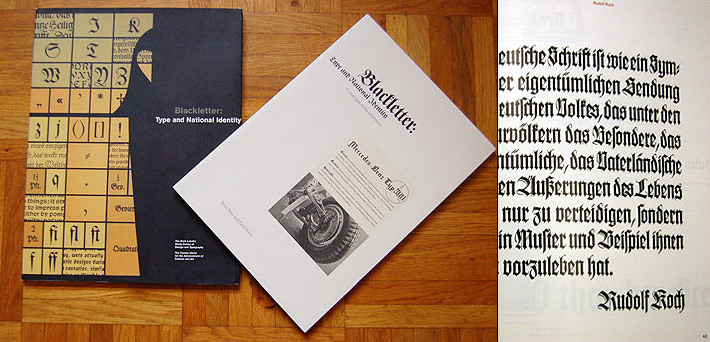
Resources for Blackletter Type
Visitors to TypeOff.de often ask for further information regarding blackletter type, its history and development, as well as its current use. Below are a list of links that I have assembled to try and help designers navigate through the topic. Please note that while this page does not descibe the history or classification of blackletter typefaces, it does link to several resources that do.
The “Blackletter: Type and National Identity” Exhibition
Several books were published alongside this exhibition, held at Cooper Union in New York in 1998, including the color piece Blackletter: Type and National Identity, by Paul Shaw and Peter Bain. American residents can purchase the book from them over Amazon; International customers may order the book from Peter Bain directly, and pay via PayPal. There is also a catalog by the same name, which seems to be out of print: Blackletter: Type & National Identity; Catalogue of the Exhibition, also by Paul Shaw and Peter Bain.
The Calligraphers Guild published a double-issue for the exhibition entitled “The Calligraphic Tradition in Blackletter Type,” SCRIPSIT Summer 1999: Volume 22, Numbers 1 and 2, by Paul Shaw. Copies of this is available here and here.
More Print Items
Christina Paoli’s Mexican Blackletter was initially designed as a graduate student project. Several years ago, this was discussed on Typophile, in the thread Blackletter in Mexico.
Fraktur: Form und Geschichte der gebrochenen Schriften was written by Albert Kapr and published by the Verlag Hermann Schmidt, Mainz in 1993. In my opinion, this is still the best resource in any language for learning about the history and breadth of blackletter typefaces. The book is about the same size as Robert Bringhurst’s Elements of Typographic Style, so I have them next to each other on my bookshelf. Sometimes, I even refer to it as the “Elements of Blackletter Style.” The book’s text is German, with black and white illustrations.
Spread from Albert Kapr’s 1993 epic history of blackletter, with close-up to the right.
Also from the Verlag Hermann Schmidt is Fraktur mon Amour, a prayerbook-style catalog of blackletter types old and new. Personally, I would find this book a much better resource if it discussed the quality levels of some of the fonts displayed. Free fonts—some of rather poor technical quality—are displayed side by side with professionally-produced fonts. Readers are not able to get a good sense for which fonts will actually work in their design processes and environments.
Linotype Matrix Vol. 4 Issue 2: “Inside the library at the Gutenberg Museum,” by Dan Reynolds (see a few more images here).
Some alternate views on the development of blackletter in general, and of fraktur in particular, may be found in the books of Gerrit Noordzij: The Stroke: Theory of Writing and LetterLetter.
On the left, spreads from The Stroke and LetterLetter. On the right, a close-up of an image from The Stroke.
Just a few of the digital blackletter typefaces that are just too deliciously good:
- P22 Bastyan, by Frau Jenson
- Fakir, by Underware
- Ferox, by Miles Newlyn
- Fette Gotisch, from Linotype
- Givry, by Tom Grace (Type Together)
- Kaas, by Hugo d’Alte (Village)
- Moyenage, by František Štorm
- Sabbath Black, by Miles Newlyn (Emigre)
- Wilhelm Klingspor Gotisch, by Rudolf Koch (originally for Gebr. Klingspor)